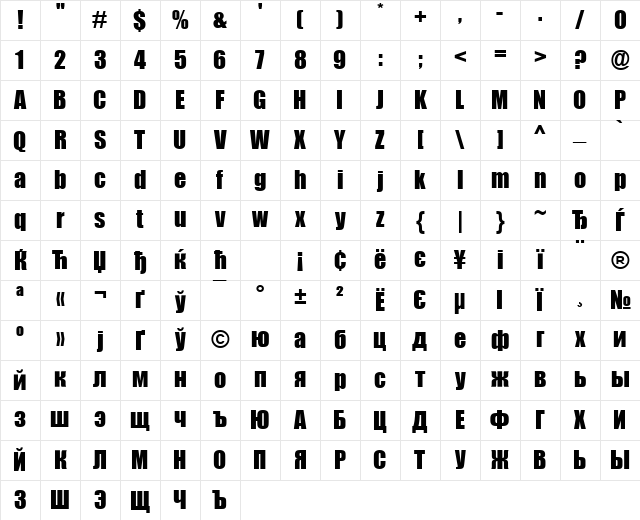
Impact KOI8 Regular Free Font
Impact KOI8 Regular
Design Context for Impact KOI8
Impact KOI8 brings high-energy athletic personality to the page - its confident, muscular forms are built for impact.
Pro Tip: Use Impact KOI8 in all-caps headlines where its athletic energy can fully express itself. Pair with a solid, simple sans for supporting text.